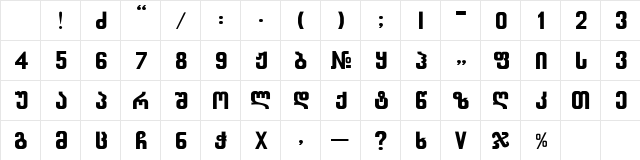
Complete Balavery-ITV Regular glyph index. Displaying only characters natively supported by Balavery-ITV Regular font.
Balavery-ITV is a composed and adaptable typeface that performs quietly and consistently across a wide range of design contexts.